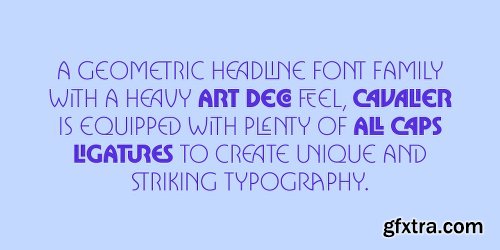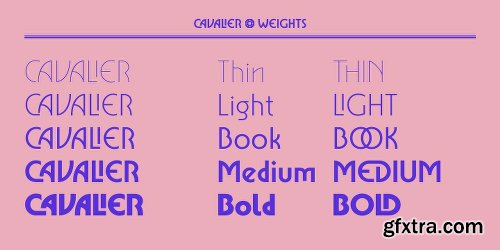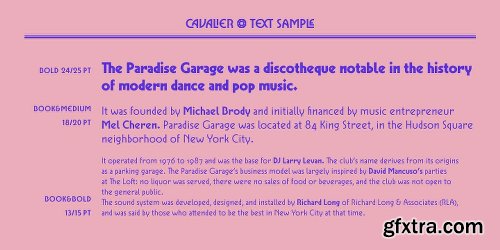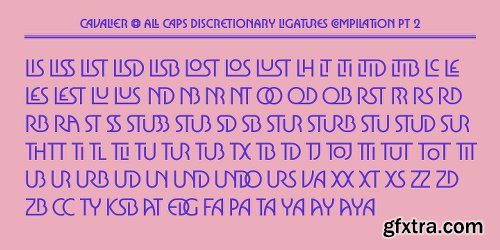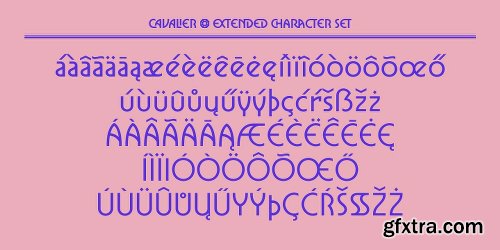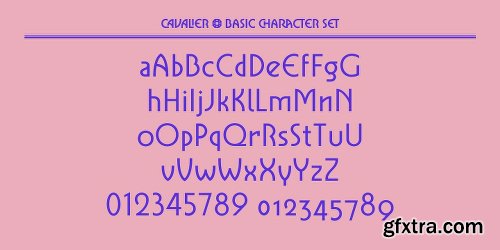
- Cavalier is a bold and extravagant headline typeface. Drawing inspiration from the iconic Lubalin classic, ITC Serif, Cavalier maintains in its design an approach more geometric and slightly cleaner. Equipped with plenty over 100 discretionary ligatures, Cavalier makes for a striking headline font, yet capable of legibility even in longer texts.